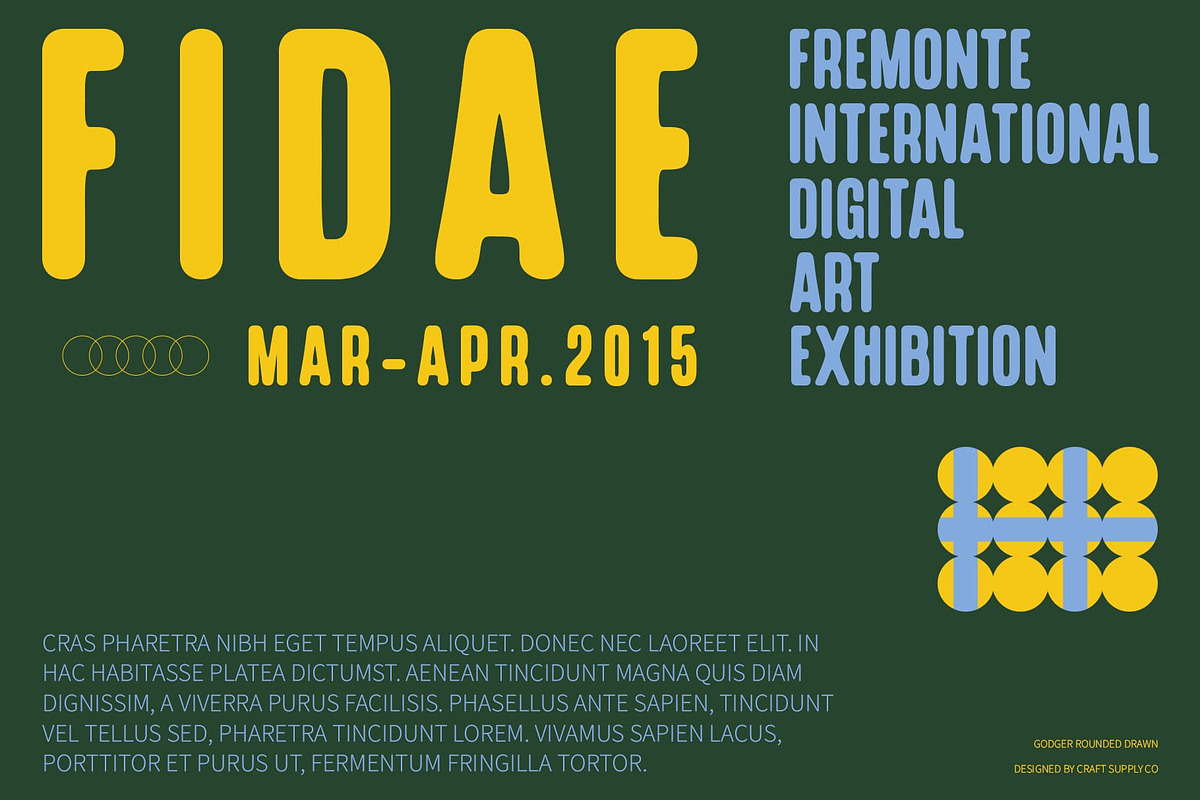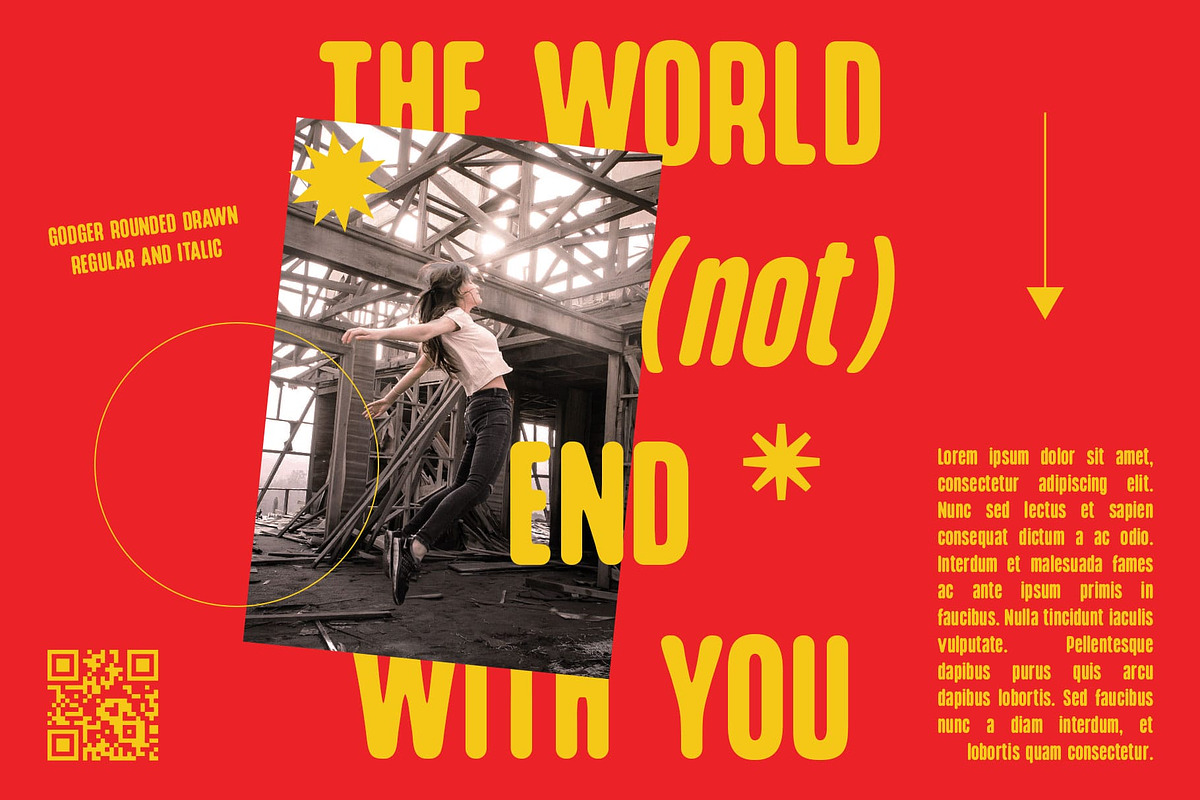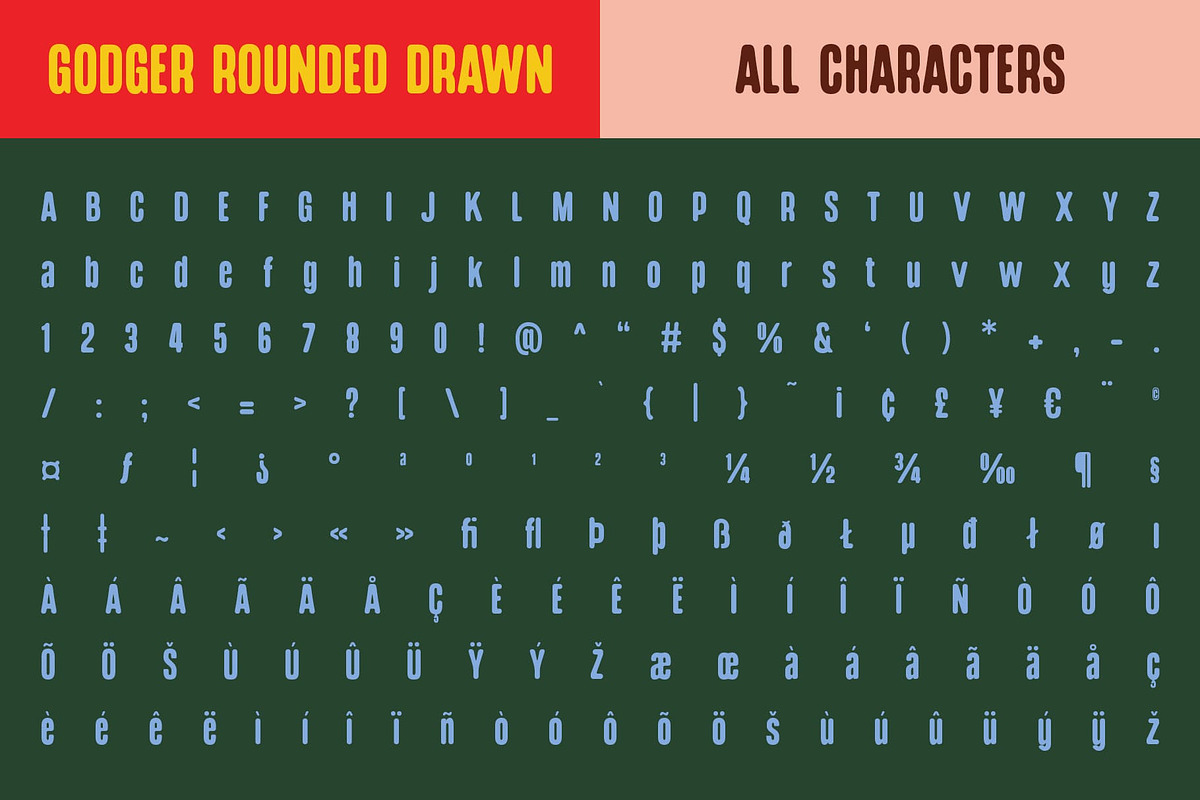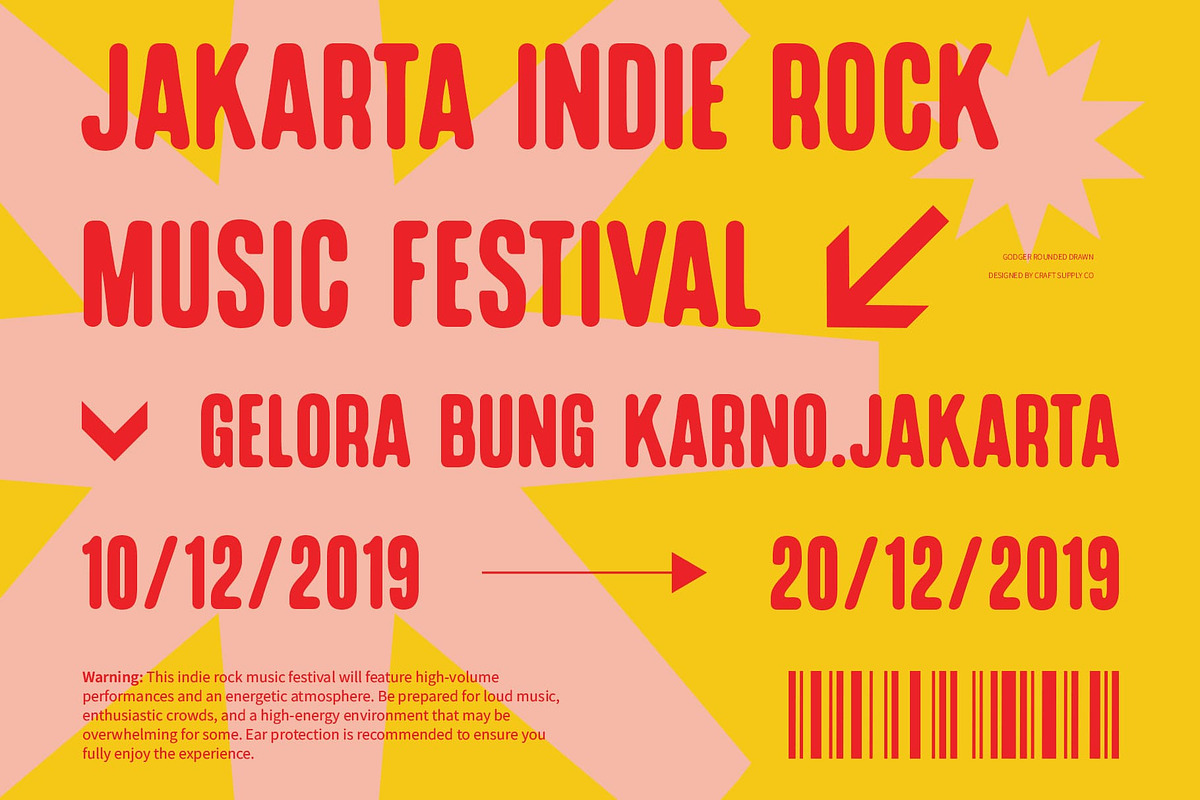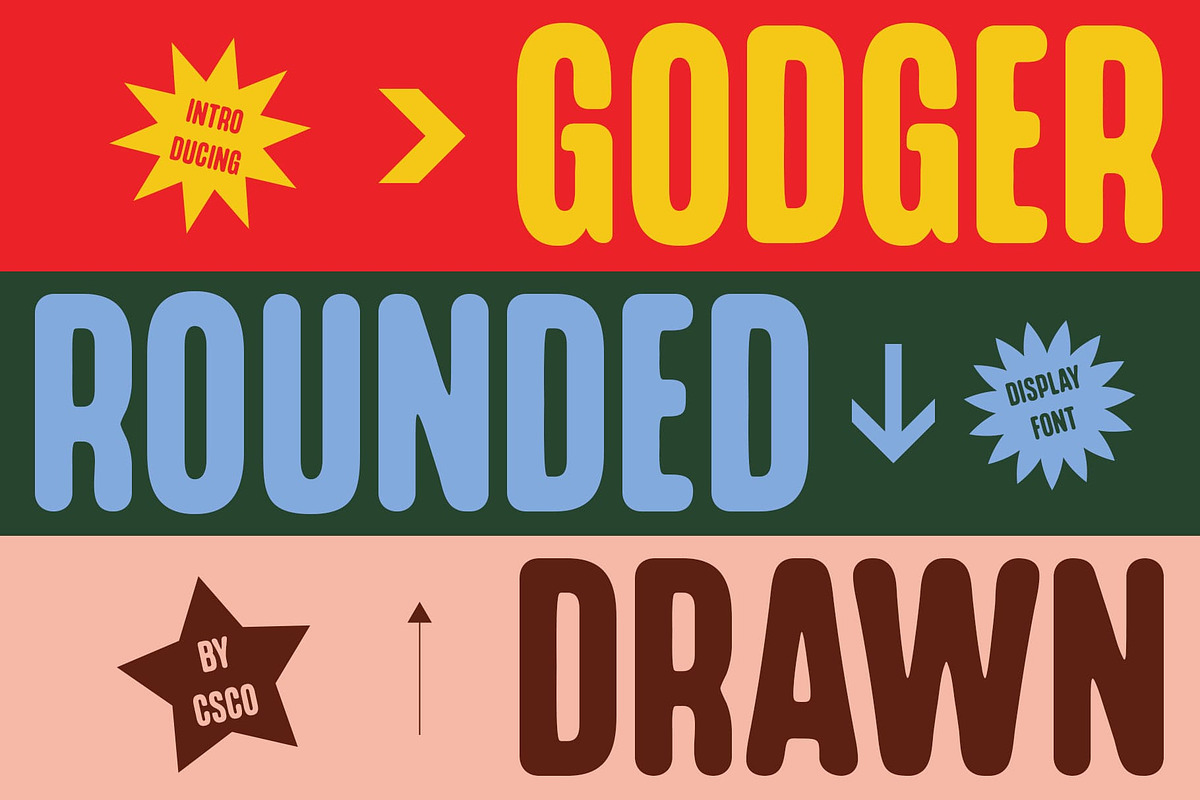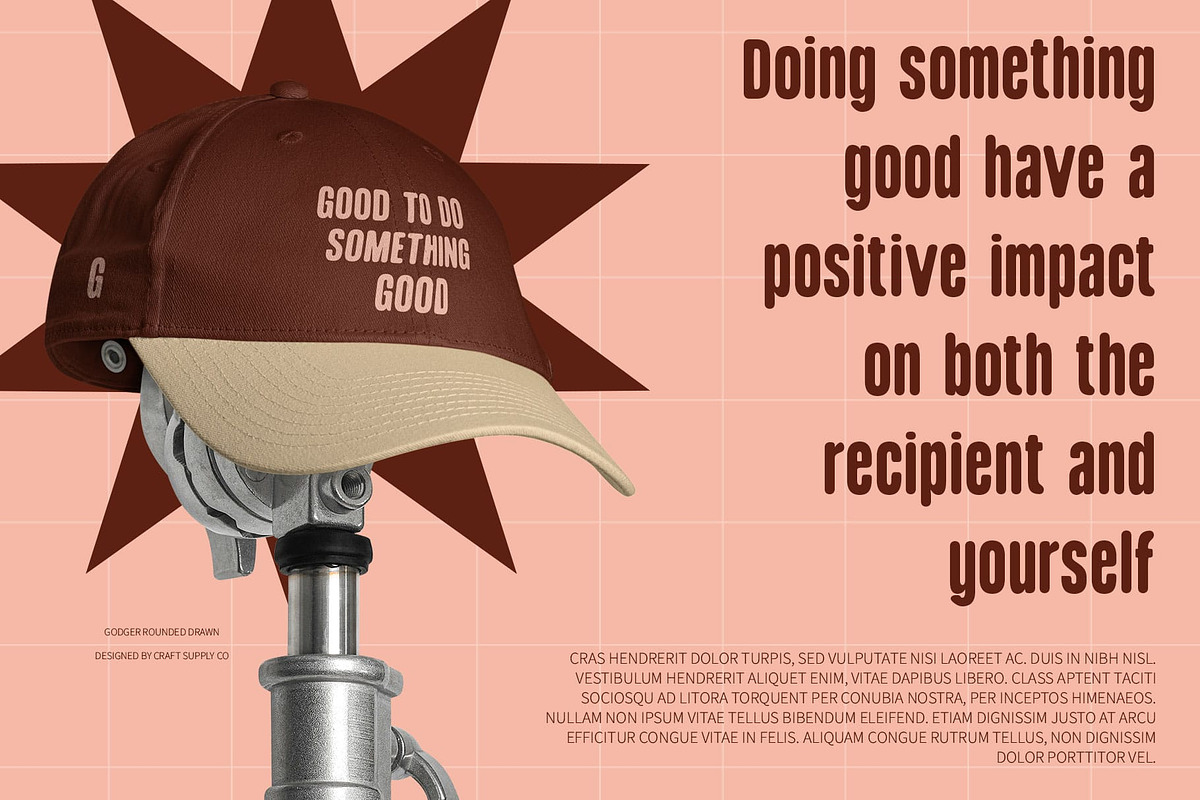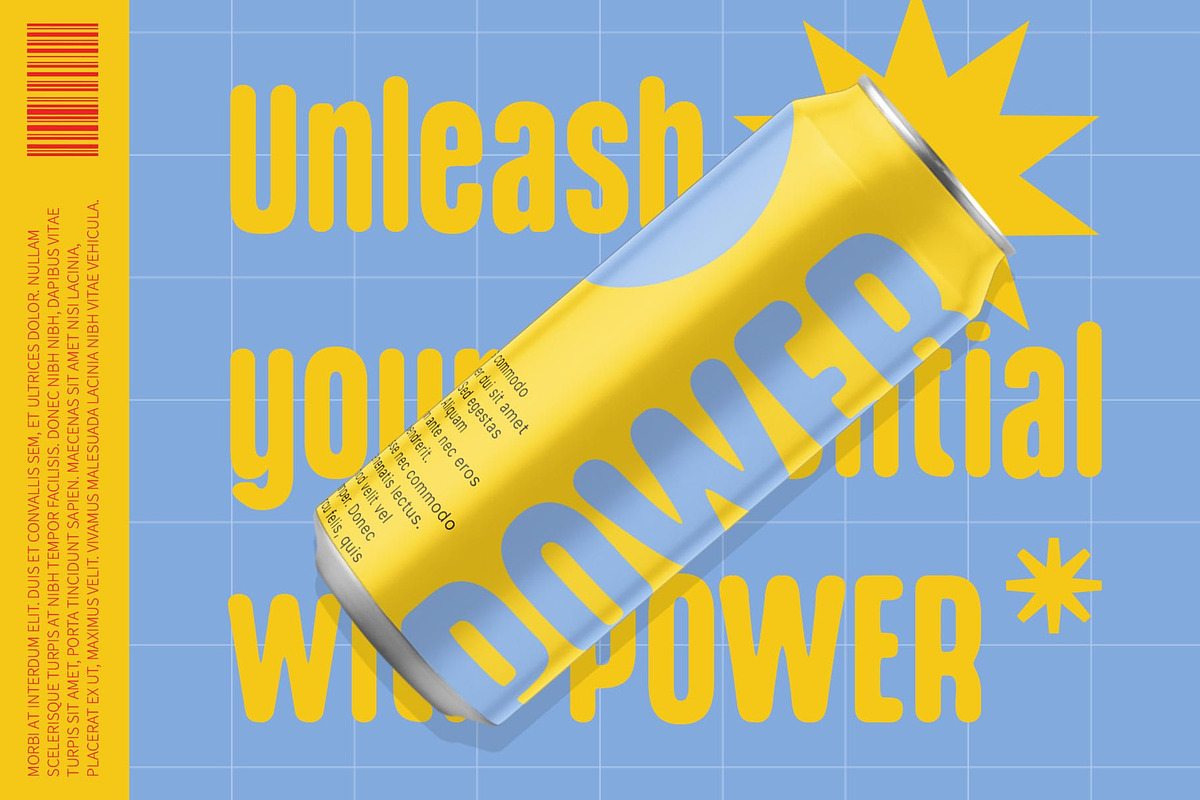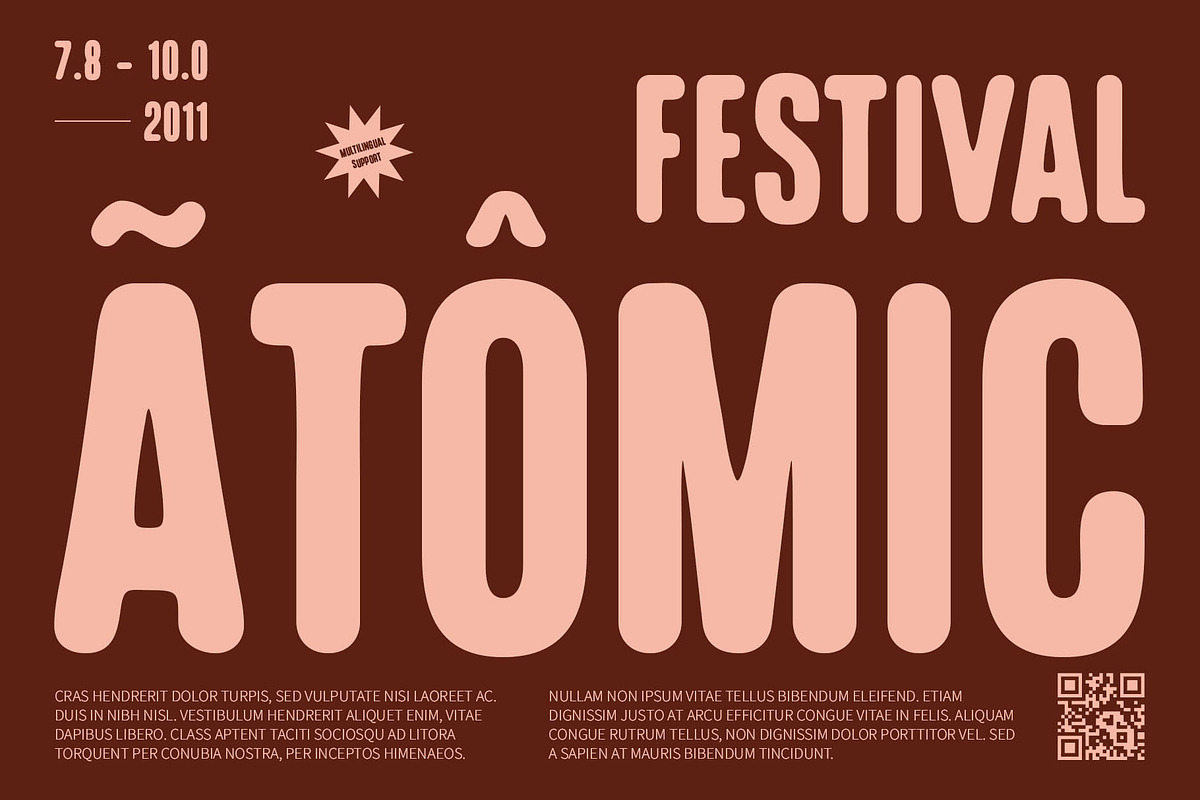
Godger Rounded Drawn
Godger Rounded Drawn – Modern Sans Serif Font
Bold, Rounded, and Handcrafted Elegance
Godger Rounded Drawn is a modern sans serif font that masterfully merges a condensed, bold design with rounded, friendly shapes and a distinctive drawn effect. This unique font seamlessly integrates streamlined, compact letterforms with an eye-catching visual impact, making it an ideal choice for a variety of applications.
Striking Visual Impact with Artistic Flair
The condensed and bold structure of this rounded drawn font ensures a strong, authoritative presence, while the rounded edges soften its appearance, introducing a touch of warmth and approachability. The font’s drawn effect adds a hand-crafted texture, infusing it with artistic character and a personal touch that stands out.
Versatile for Contemporary and Creative Projects
Perfectly suited for branding, promotional materials, and creative designs, this font delivers a contemporary look enhanced by unique, engaging elements. Its ability to balance modern sophistication with handcrafted charm makes it an excellent choice for projects that need to capture attention and convey a memorable impression.
A Font That Combines Modern Design with Artistic Expression
With its bold, rounded shapes and hand-drawn texture, this rounded drawn font provides a contemporary aesthetic enriched by creative details. This font is designed to make a statement, offering both visual appeal and distinctive character that elevates any design project.